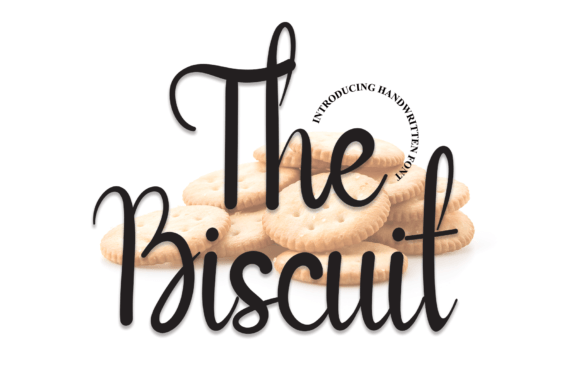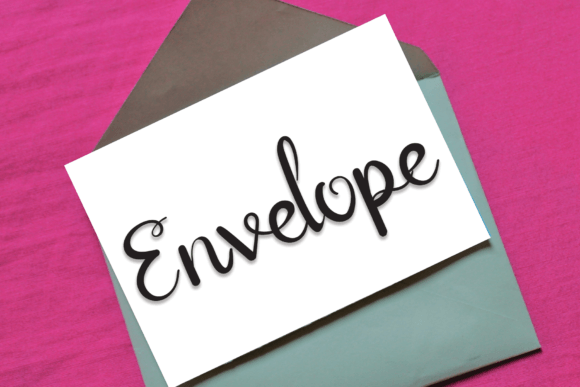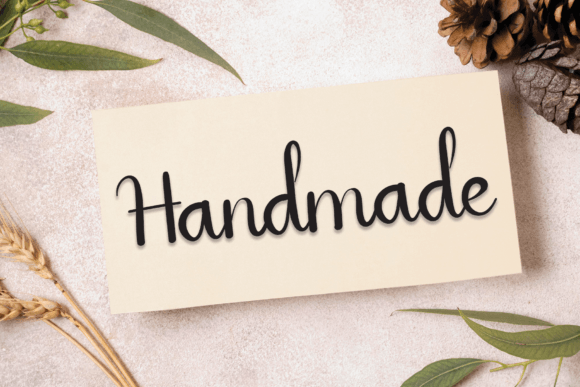
The Biscuit Font
The Biscuit Handwritten Font – Fun and Friendly Script
The The Biscuit Handwritten Font is a cheerful and stylish typeface designed to add charm and playfulness to your projects. With its smooth handwritten strokes and approachable style, it adapts beautifully to both personal and professional design needs. Whether you’re working on invitations, posters, or social media graphics, this font ensures your creations stand out with warmth and creativity.
A Script with Playful Personality
The Biscuit Handwritten Font combines casual handwritten strokes with a lively and modern design. Its balanced curves make it approachable, while its clean readability ensures professional usability. Because of this, it works well in both digital and print formats, giving every project a unique look.
One of the most popular uses of the The Biscuit Handwritten Font is in invitations and greeting cards. Wedding stationery, thank-you notes, and birthday cards gain a more personal and heartfelt appearance when created with this script. At the same time, it fits perfectly into posters, branding projects, and product packaging, where a handwritten font adds originality.
The Biscuit Handwritten Font adapts effortlessly across a wide range of creative applications. From social media designs and decorative quotes to product logos and DIY crafts, it provides a handwritten charm that feels both modern and timeless. Its versatility ensures it will quickly become a go-to font in your design library.
Why Designers Love The Biscuit Font
Designers love the The Biscuit Handwritten Font because it balances friendliness with functionality. Its playful handwritten strokes add personality to projects, while its clarity ensures professional-quality outcomes. This combination of style and usability makes it a must-have typeface.
In summary, the The Biscuit Handwritten Font is a fun, friendly, and versatile script typeface. With its approachable handwritten design, easy installation, and broad usability, it is perfect for invitations, posters, crafts, and branding. Don’t miss the chance to download The Biscuit Handwritten Font and bring joyful handwritten beauty to your next project.